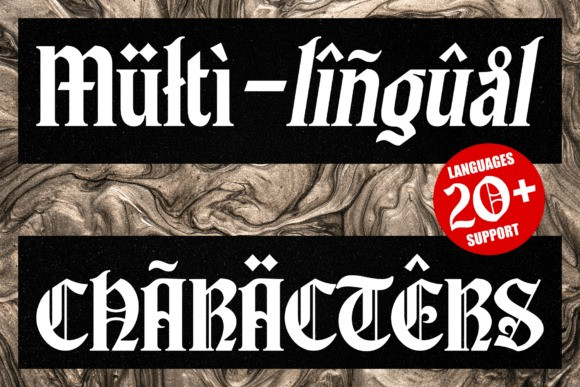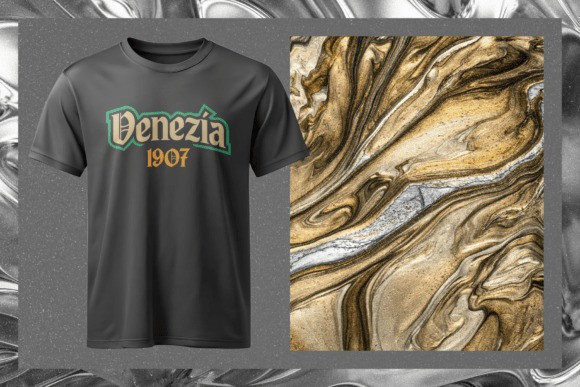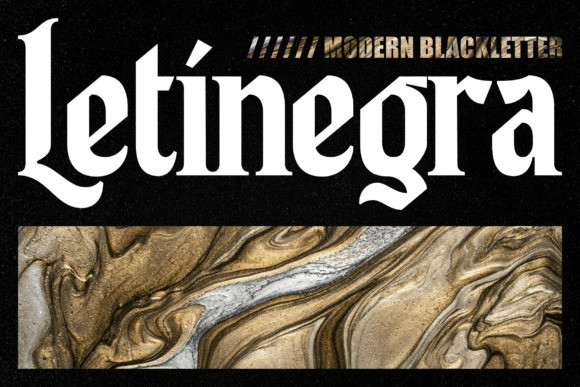
Letinegra Font
Letinegra Font is a modern blackletter font. Inspired by the Old English period, this font is best suited for bold, classic, and striking designs such as headlines, poster designs, logos, apparel designs, etc. It comes in two styles: Regular and Italic, and supports multiple languages.